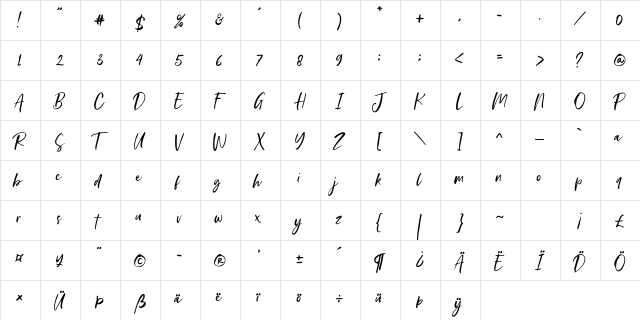
Daphne Haney Regular
| Designer | Ardian Nuvianto 2020 |
Design Context for Daphne Haney Typeface
Daphne Haney is a composed and adaptable typeface that performs quietly and consistently across a wide range of design contexts.